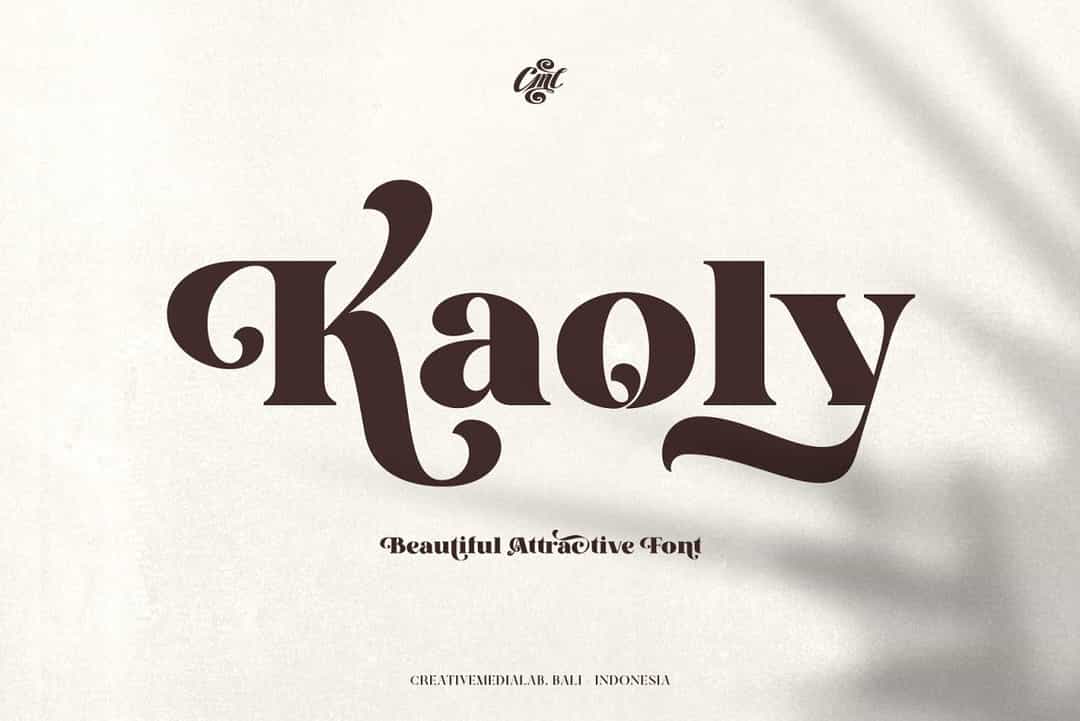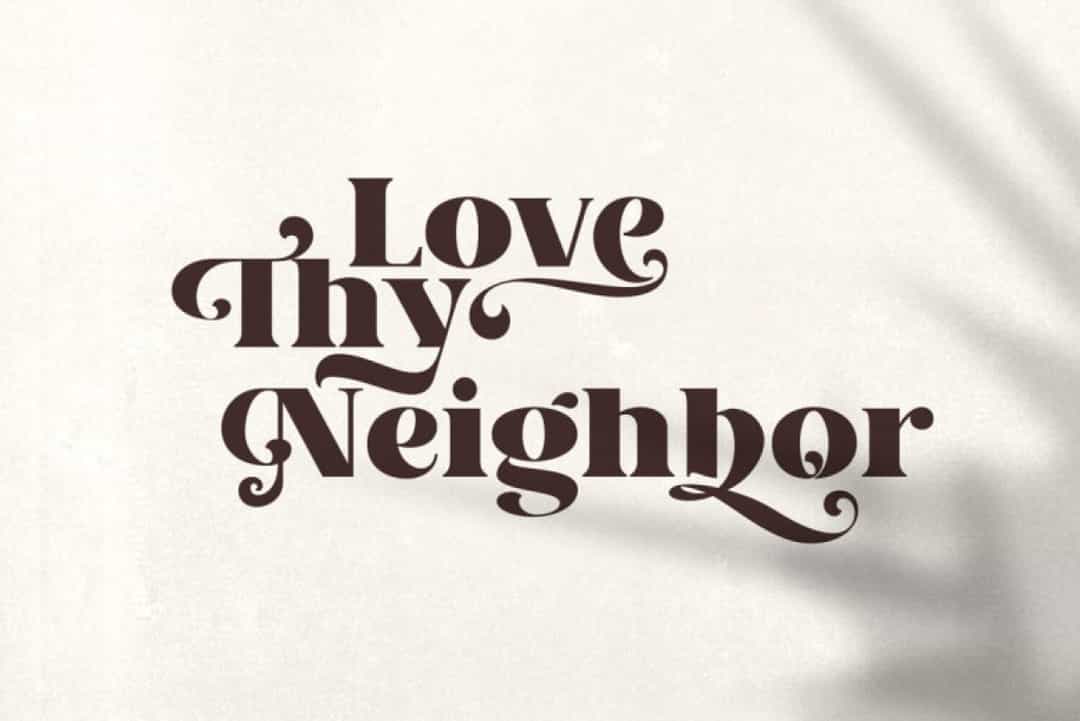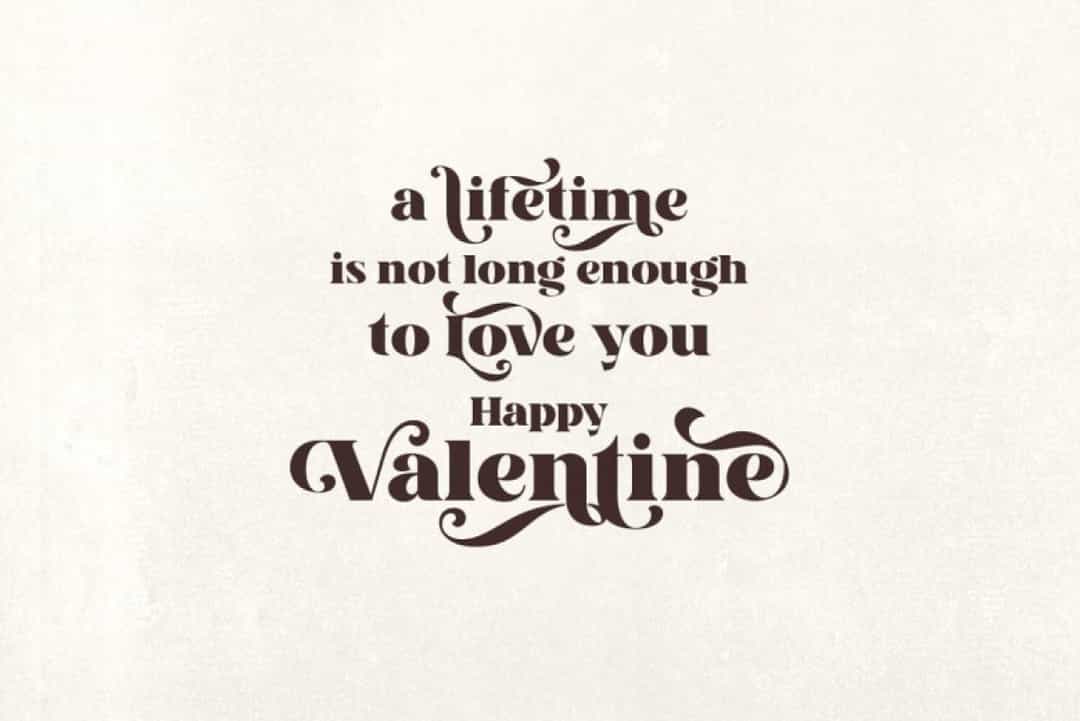
Discover Kaoly Bold Serif Font, part of the Serif collection—a versatile and unique font perfect for adding a personal touch to your projects. Download it for free and enjoy crafting designs with style, from invitations to social media posts. This font is available exclusively for personal use, giving you the freedom to create without limits. Unlock your creativity with Kaoly Bold Serif Font today!
Introducing Kaoly Font. This font is full of the unique and beautiful alternate characters that you can mix to get a nice final lettering with the dynamic shapes just in seconds! Thank you for the special alternatives! This font is apt for various design formats, such as Magazine, postcard, logo and Wedding projects among others. we suggest that you use Adobe Illustrator or photoshop.